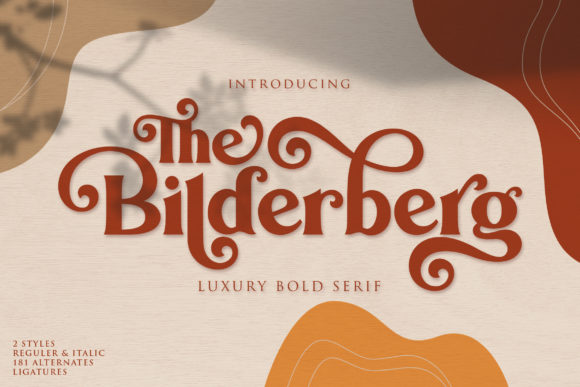
Introducing Bilderberg Font, the perfect choice for all your wedding invites! Created by Almeera Studio, this serif font is bold, sophisticated, and guaranteed to make a lasting impression. With its chunky and extended characters, Bilderberg is not only visually striking but also incredibly versatile, making it ideal for various design projects.
Imagine the elegance and charm that Bilderberg Font will bring to your wedding invitations. Its bold and commanding presence will captivate your guests and set the tone for your special day. Whether you're going for a classic or modern theme, this font effortlessly adapts to your style, adding a touch of refinement to every detail.
But it doesn't stop there. Bilderberg Font goes beyond wedding invites. Its masterful design makes it a true must-have for all your creative endeavors. Stand out from the crowd with logos that exude confidence and professionalism. Enhance your branding and packaging designs with a font that speaks volumes about your product's quality. From websites to social media posts, Bilderberg Font will make your content shine.
Let's talk about the emotions Bilderberg Font evokes. Its boldness commands attention, leaving a lasting impression on anyone who encounters it. The sophistication it exudes will make your audience feel like they're in the presence of something truly special. It evokes a sense of trust, reliability, and impeccable taste, making it the perfect choice for businesses and individuals alike.
Don't settle for ordinary fonts when you can have something extraordinary. Bilderberg Font is your secret weapon to creating captivating and unforgettable designs. Its keyword-rich composition ensures that your content will be easily discoverable by users actively searching for fonts for their wedding invites. Give your project the attention it deserves and let your creativity soar with Bilderberg Font.
In summary, Bilderberg Font is the epitome of elegance, sophistication, and versatility. Its bold and extended characters make it perfect for wedding invites, logos, branding, packaging design, and so much more. With its emotional appeal and captivating presence, this font is guaranteed to leave a lasting impression on your audience. Don't miss out on the opportunity to elevate your designs with Bilderberg Font!